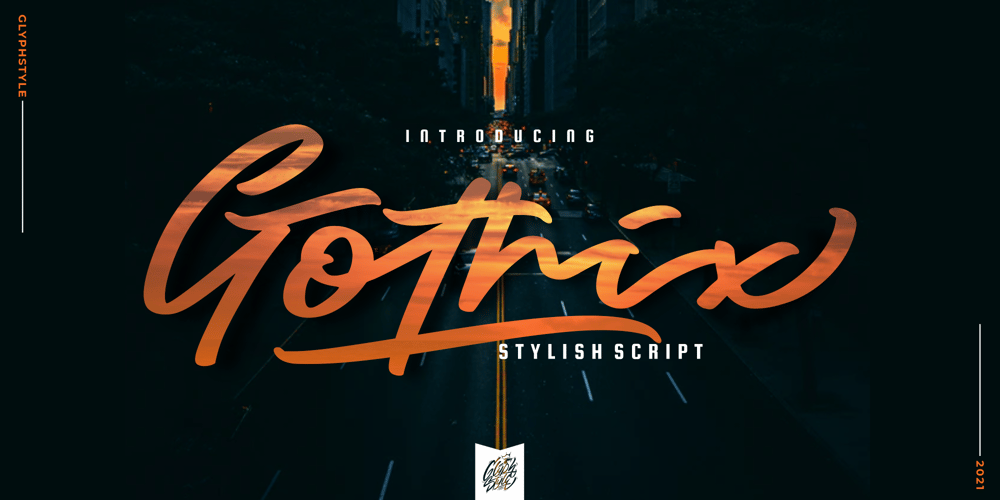
Gothix Font Family was designed by Dimas Ardhi and published by GlyphStyle. Gothix contains 1 styles and family package options. Gothic is a stylized script style, with a wide selection of characters. A bold script font that looks cool. Gothic is perfect for branding projects.You can access swash by changing numbers 0-9-Features of fonts Lowercase, Uppercase, Numbers & Punctuation, Lowercase alternatives, swash variant ligature Stylistic set 1 (for the end of the word) Stylistic set 2 (for the middle of the word) Stylistic set 3 (for the beginning of the word) Stylistic set 4 (for the end of the word) multilanguage